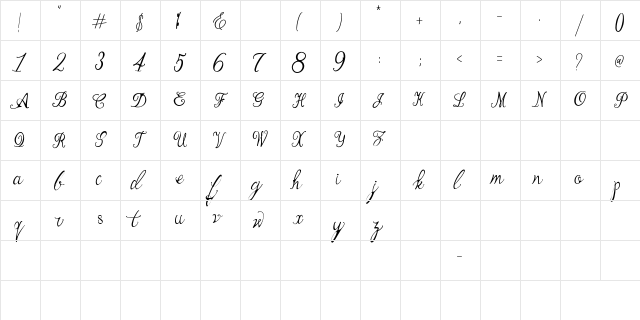
Bernadine Script Regular
Design Context for Bernadine Script Typeface
Bernadine Script flows with the natural rhythm of handwritten lettering, making it ideal for designs that call for warmth and personal expression.
Font Pairing: Combine Bernadine Script with a simple geometric sans for maximum contrast — the tension between flowing curves and clean structure is a classic typographic pairing.
Pro Tip: Pair Bernadine Script with a clean sans-serif for supporting text. The contrast between fluid script and geometric structure creates an elegant typographic hierarchy.